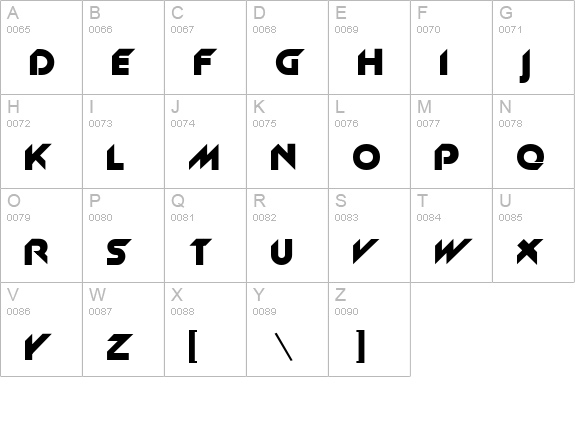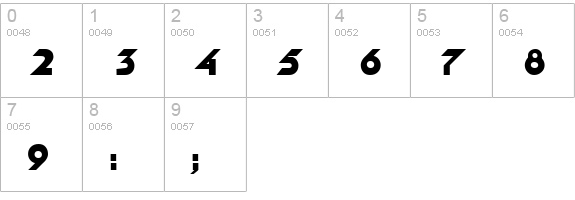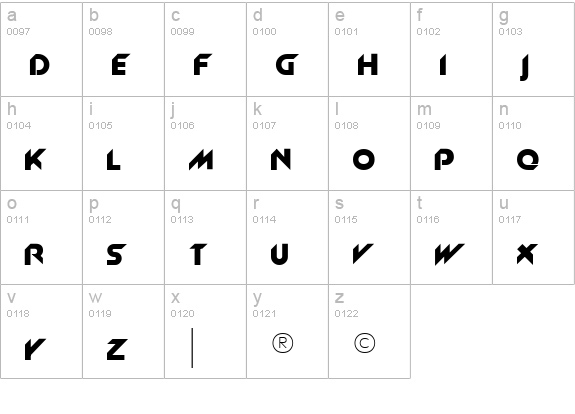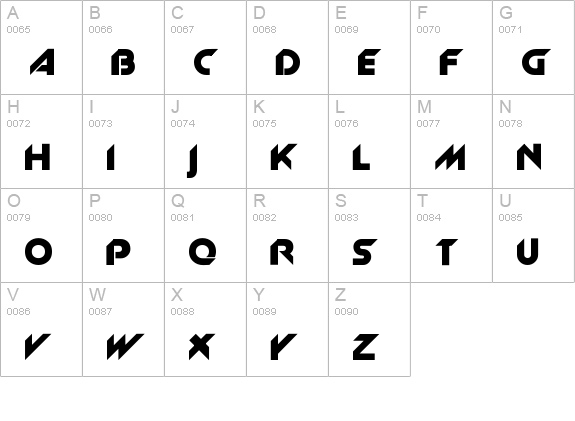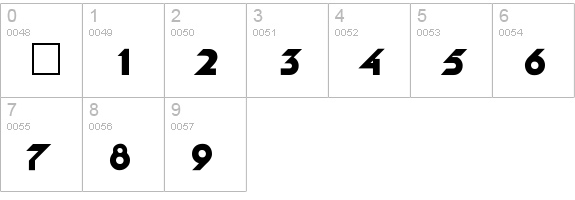
Introducing NewGarrett font, a stunning typeface that brings a perfect blend of modernity and elegance to your design projects. This versatile font is ideal for a wide range of creative applications, from branding to packaging, posters to social media graphics. Featuring clean lines and a sleek, contemporary style, NewGarrett font exudes sophistication and professionalism. Its unique characters and stylish appearance make it a standout choice for any design project. The best part? NewGarrett font is available for free download at FontsMarket.com! Yes, you read that right - you can elevate your designs with this exceptional font without spending a dime. Don't miss out on this opportunity to enhance your creative work with the beauty and versatility of NewGarrett font. Download it today and let your designs shine!